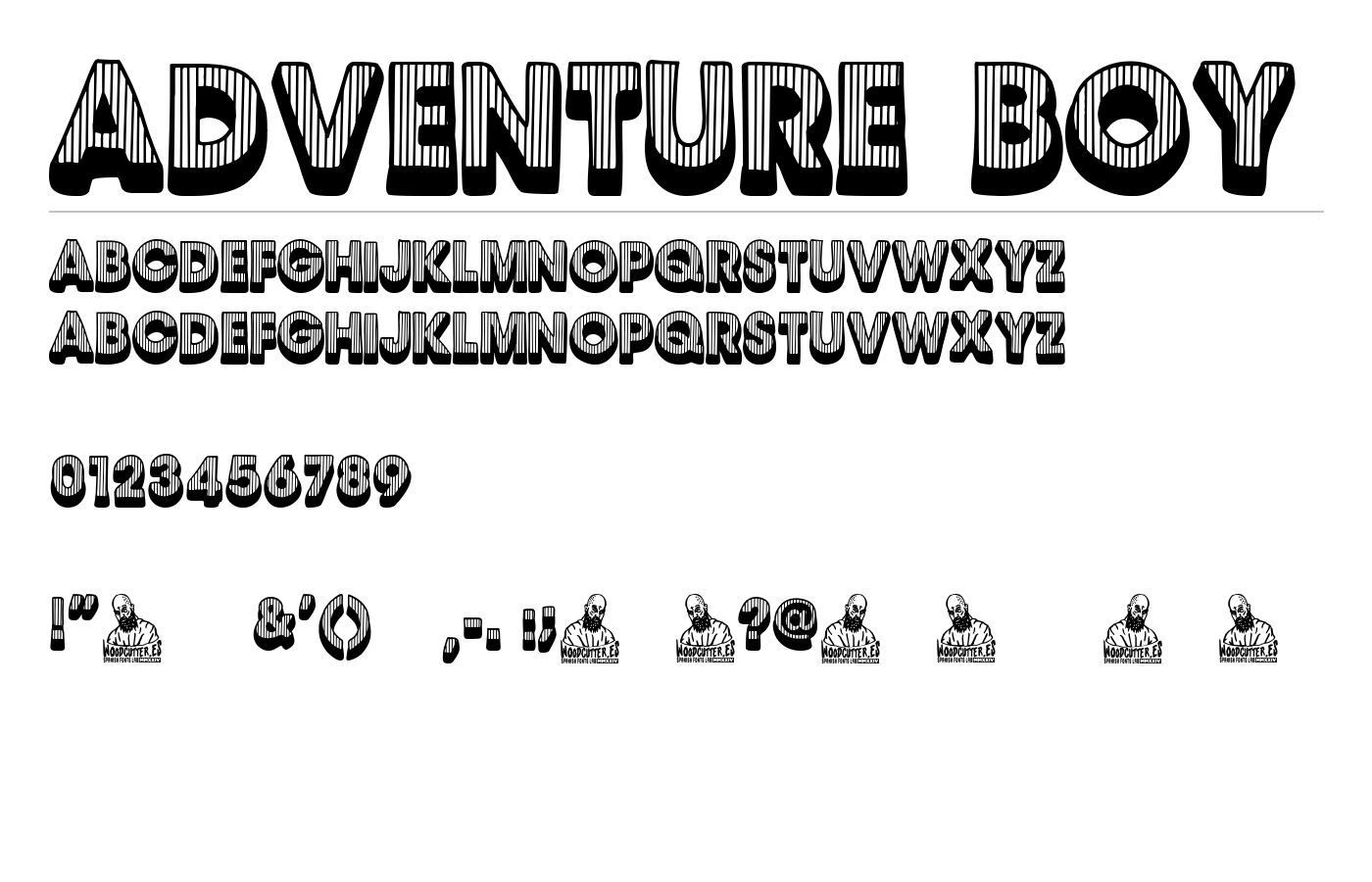
Adventure Boy is a bold, playful sans serif font with a unique striped shadow effect that gives it a fun, adventurous vibe. Its chunky, rounded letterforms and high contrast between the solid base and stripes make it perfect for eye-catching headlines, kids' branding, or playful posters where a lively, energetic feel is desired. This font stands out with its friendly personality and strong presence, ideal for projects that want to convey excitement and creativity.
Adventure Boy Font
About Adventure Boy Font